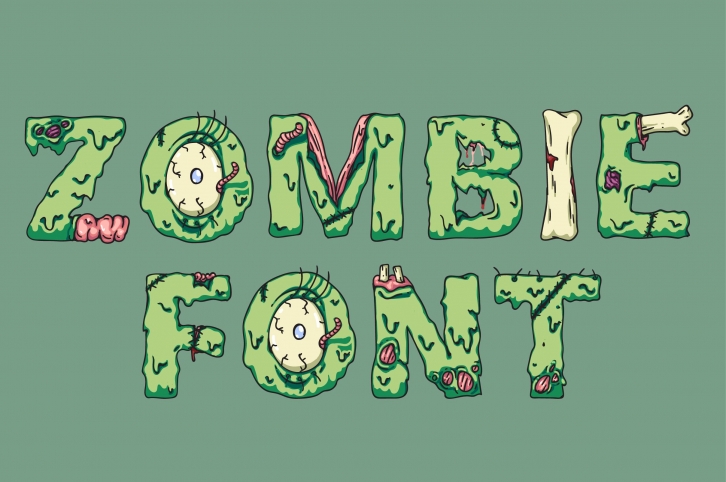
Cool scary font for halloween party. This is what are you looking for If you need zombie style font or halloween font or monster style font. Very scary monster letters for all your projects.